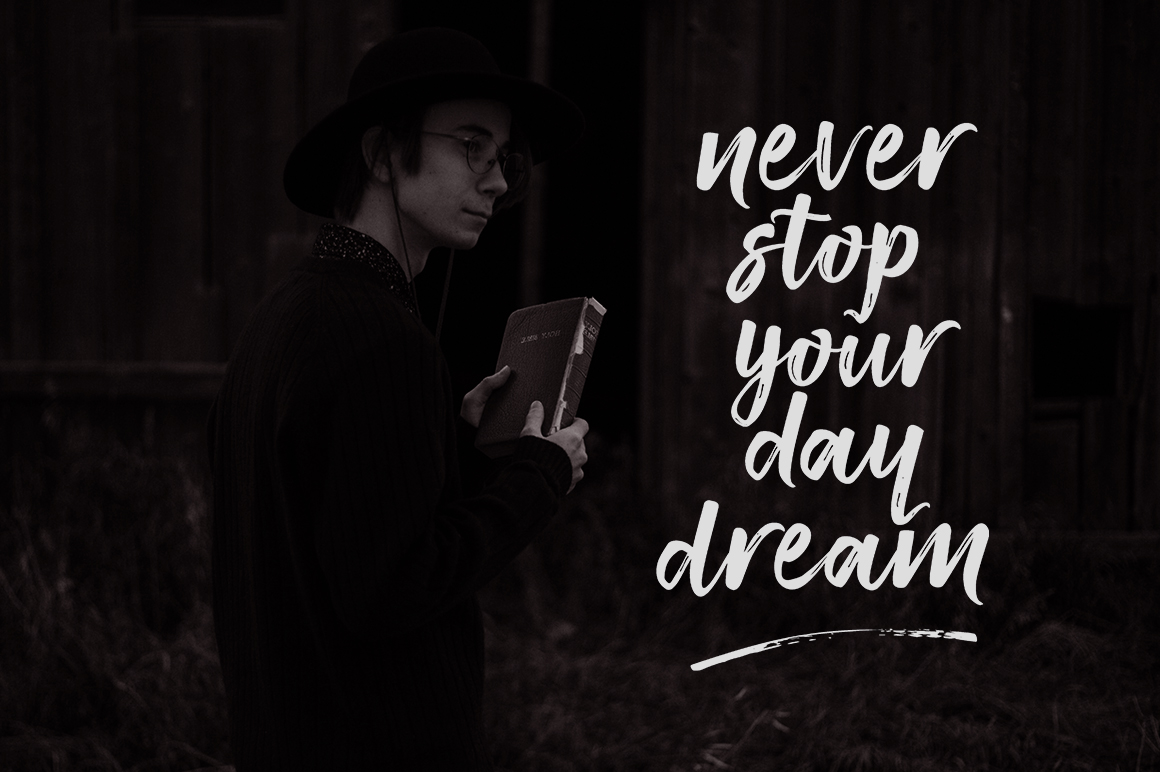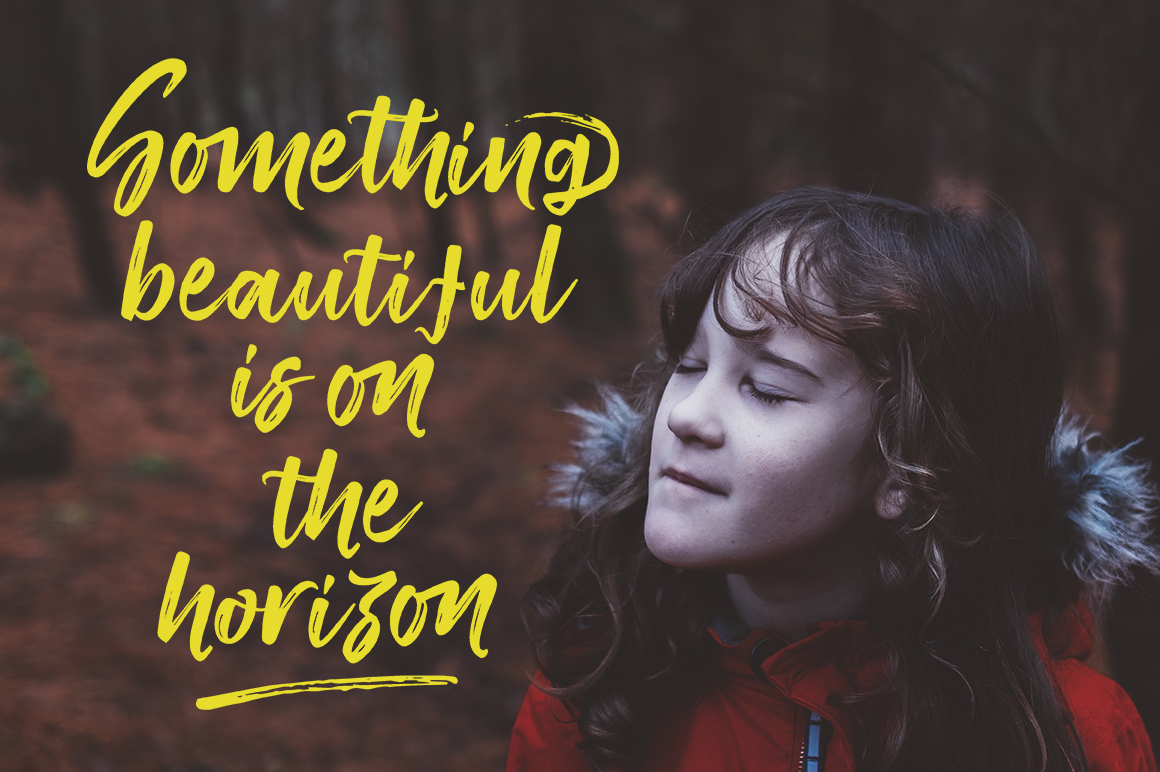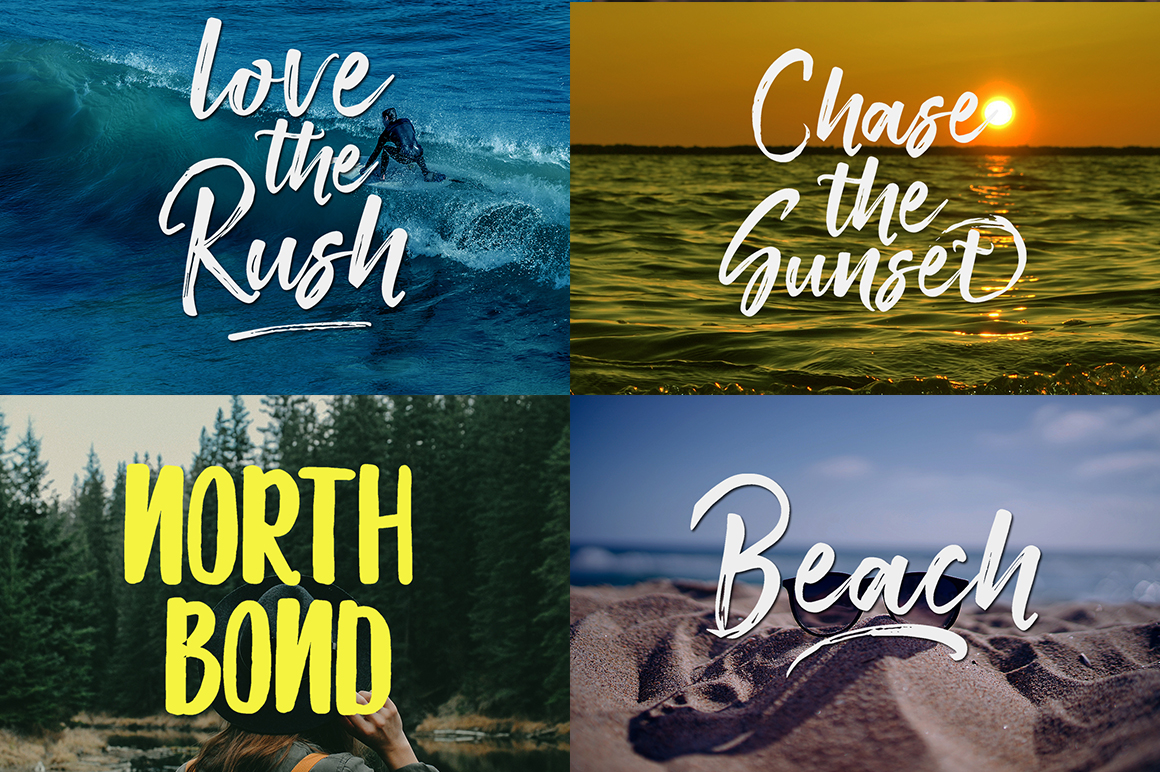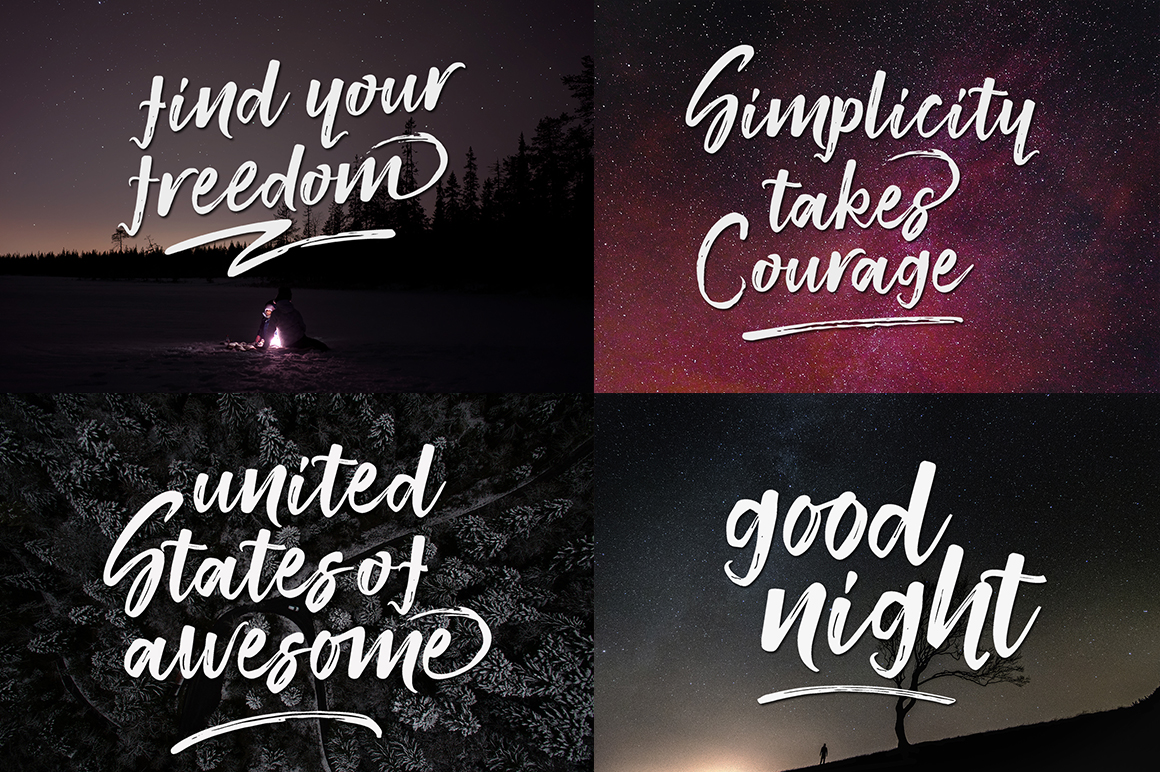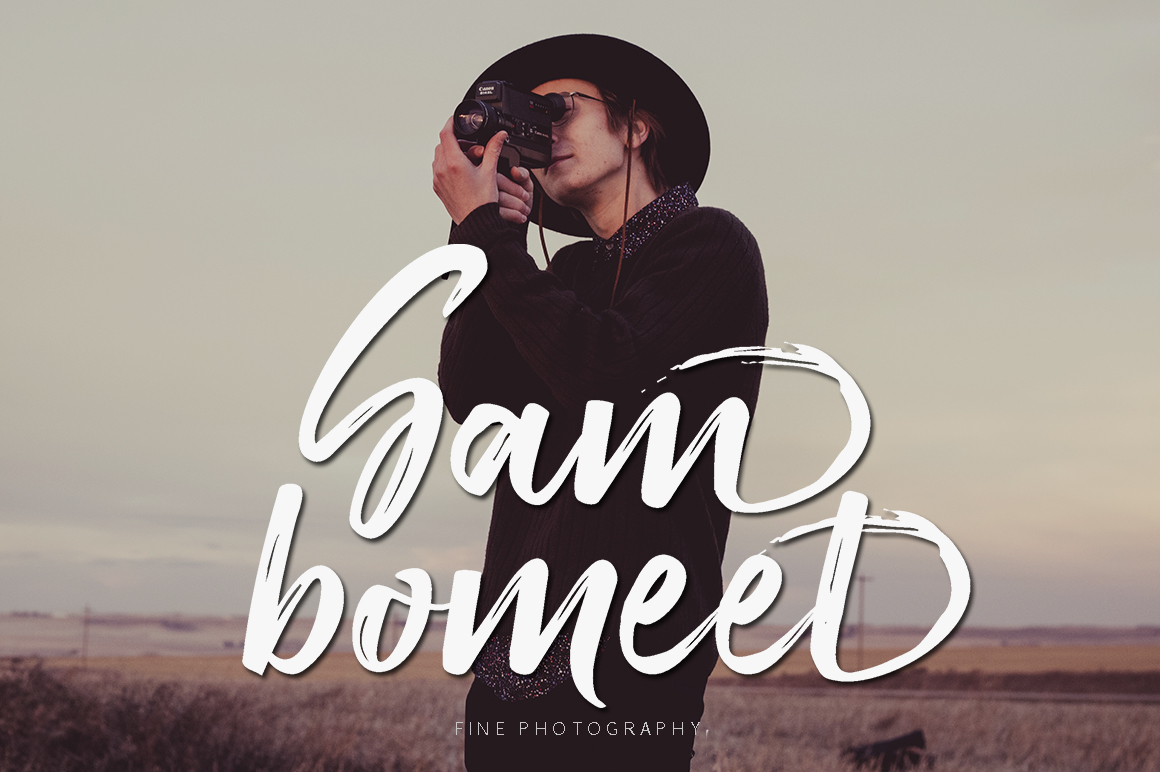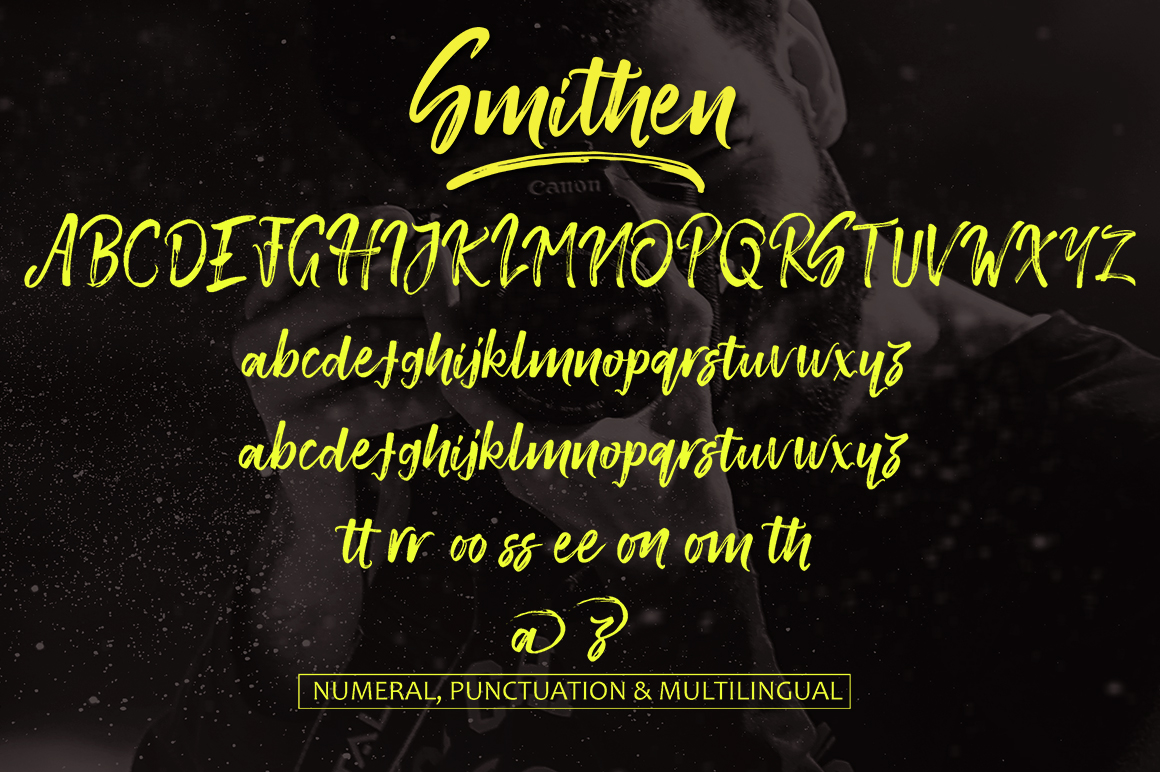
Getting Lost in the Creative Process
Have you ever found yourself lost in a sea of inspiration, surrounded by endless ideas and possibilities? That’s exactly where we were when we stumbled upon the Smithen Font. A hand-brushed masterpiece, crafted with love and precision, this font is a true gem for any creative project.
With its unique blend of high-quality design and digital perfection, the Smithen Font is a game-changer for designers. Whether you’re working on a personal project or a commercial design, this font is sure to elevate your work to the next level. And the best part? It’s available for free download, making it a valuable resource for any design enthusiast.
Introduction to Smithen Font
So, what makes the Smithen Font so special? Let’s take a closer look and discover the beauty behind this design resource.
Key Features of Smithen Font
- High-quality design resource ideal for creative projects, offering a unique aesthetic.
- Features a transparent background, making it easy to layer over images or use as a design element.
- Includes a range of characters and symbols, perfect for designers and artists working on a variety of projects.
- Designed with a high resolution of 300 DPI, ensuring crisp and clear text in print and digital applications.
- Perfect for designers and artists looking for a high-quality, free design resource to elevate their creative projects.
Honest Review: Smithen Font
As a designer, I’m always on the lookout for high-quality design resources to enhance my creative projects. Recently, I stumbled upon the Smithen Font, and I must say it’s been a game-changer for me.
What works well: ✨ The Smithen Font has a unique, modern aesthetic that’s perfect for a variety of designs, from logos to typography-heavy projects. The font is highly customizable, allowing me to adjust the transparency of the background to suit my design needs. It’s also a great free download, which is always a bonus!
What doesn’t work well: ⚠️ While the Smithen Font is incredibly versatile, it can be a bit too bold for certain designs. I’ve found that it can overpower the rest of the layout, so I have to be mindful of its usage. Additionally, the font doesn’t come with a wide range of weights or styles, which can limit its use in more complex designs.
Overall impression: I’m thoroughly impressed with the Smithen Font, and I would highly recommend it to fellow designers. Its high-quality design and transparent background make it a valuable addition to any design resource library.
- Perfect for creative projects requiring a modern, bold aesthetic
- Highly customizable with adjustable transparency
- May be too bold for certain designs
- Limited range of weights and styles
How to Use Smithen Font
Introduction to Smithen Font
The Smithen Font is a high-quality design resource that offers a unique and creative touch to any project. With its transparent background, this font is perfect for designers looking to add a modern twist to their work.
Getting Started with Smithen Font
Tips for Getting the Most Out of Smithen Font
To get the most out of the Smithen Font, try using it in combination with other design elements, such as bold lines and bright colors. You can also experiment with different font sizes and styles to create a unique and eye-catching design.
Common Use Cases for Smithen Font
The Smithen Font is perfect for a variety of creative projects, including:
- Branding